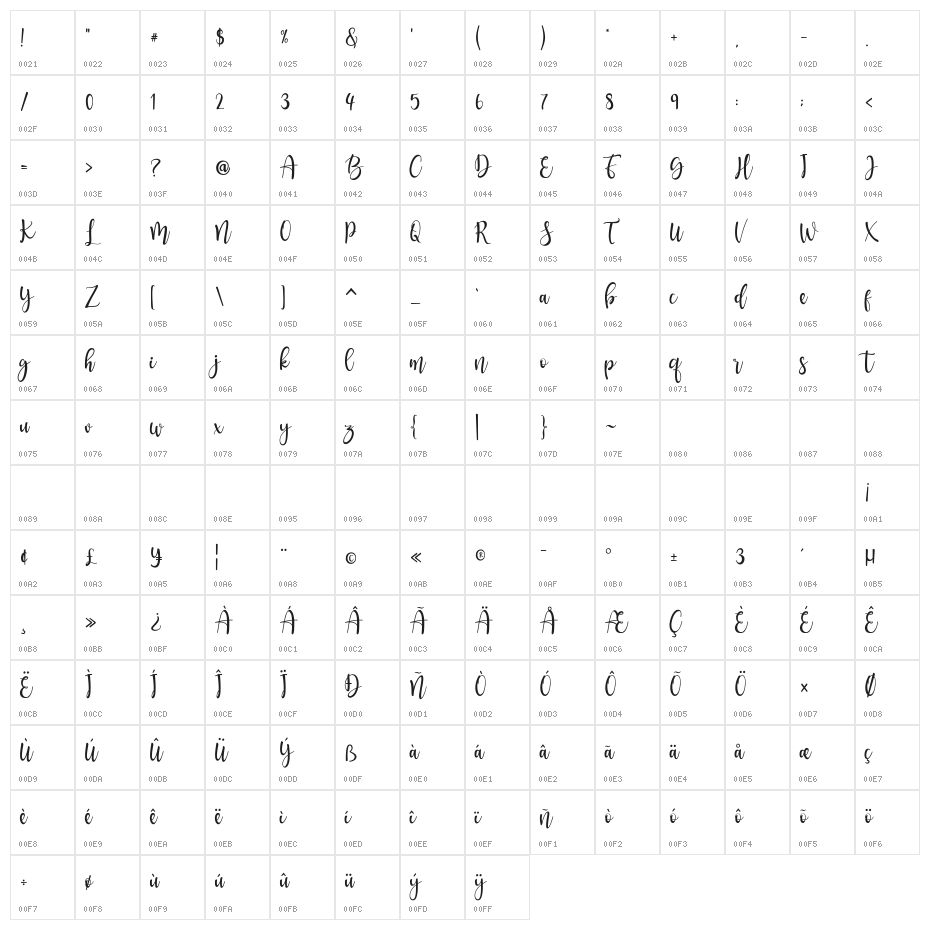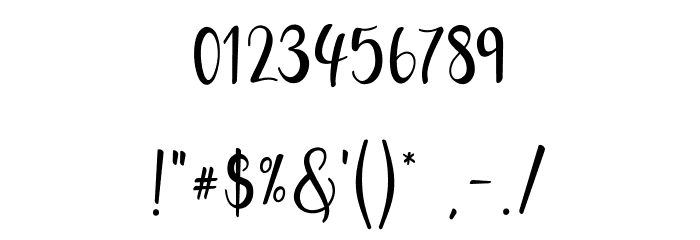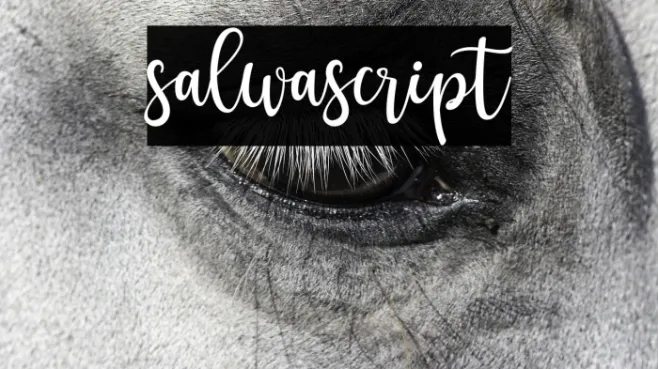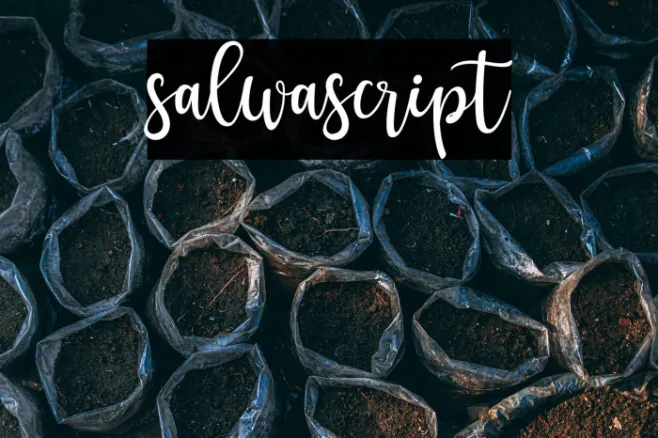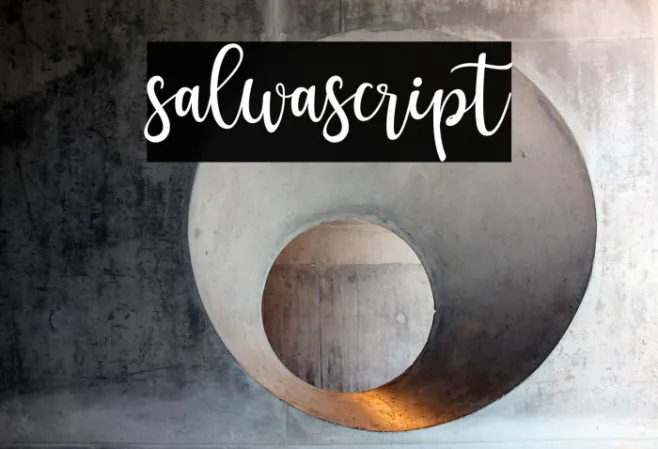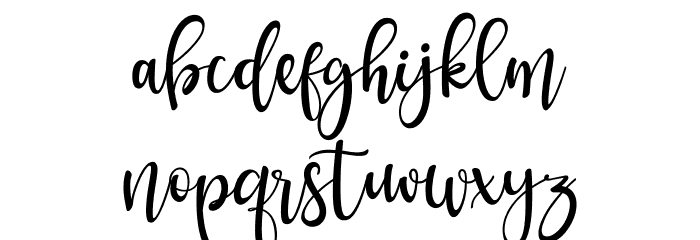
salwascript Font
salwascript Description
This font is a beautifully crafted script style that exudes elegance and fluidity. The letters are interconnected with graceful, sweeping strokes, giving it a handwritten appearance. The uppercase letters are bold and prominent, while the lowercase letters maintain a consistent flow, enhancing readability. The numerals and special characters are designed to complement the overall aesthetic, ensuring a cohesive look. This font is perfect for projects that require a personal touch, such as invitations, greeting cards, and branding materials. Its artistic flair makes it suitable for creative and expressive designs.
| Proposed Projects | Ideal for wedding invitations, greeting cards, branding, and artistic projects. |